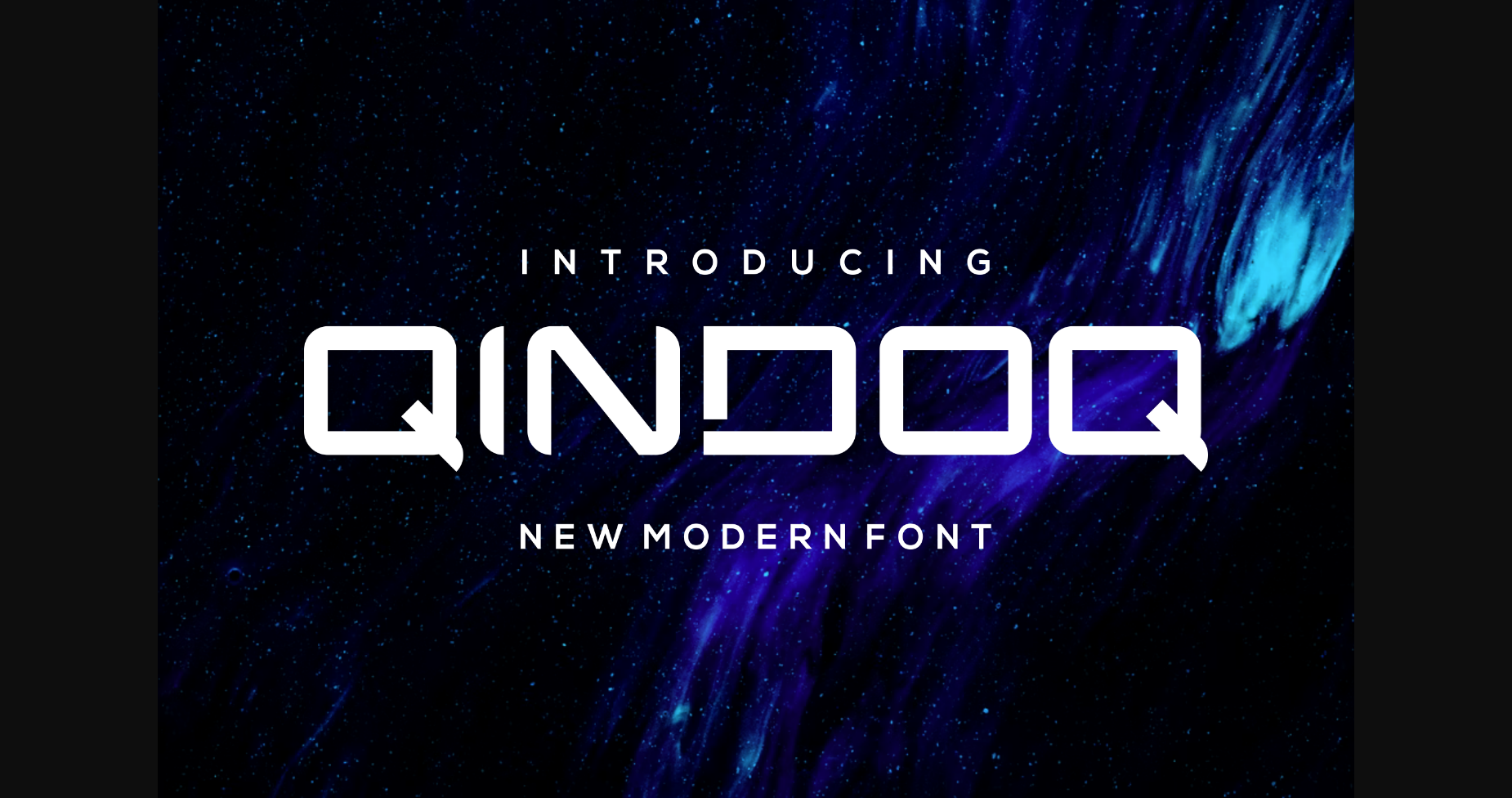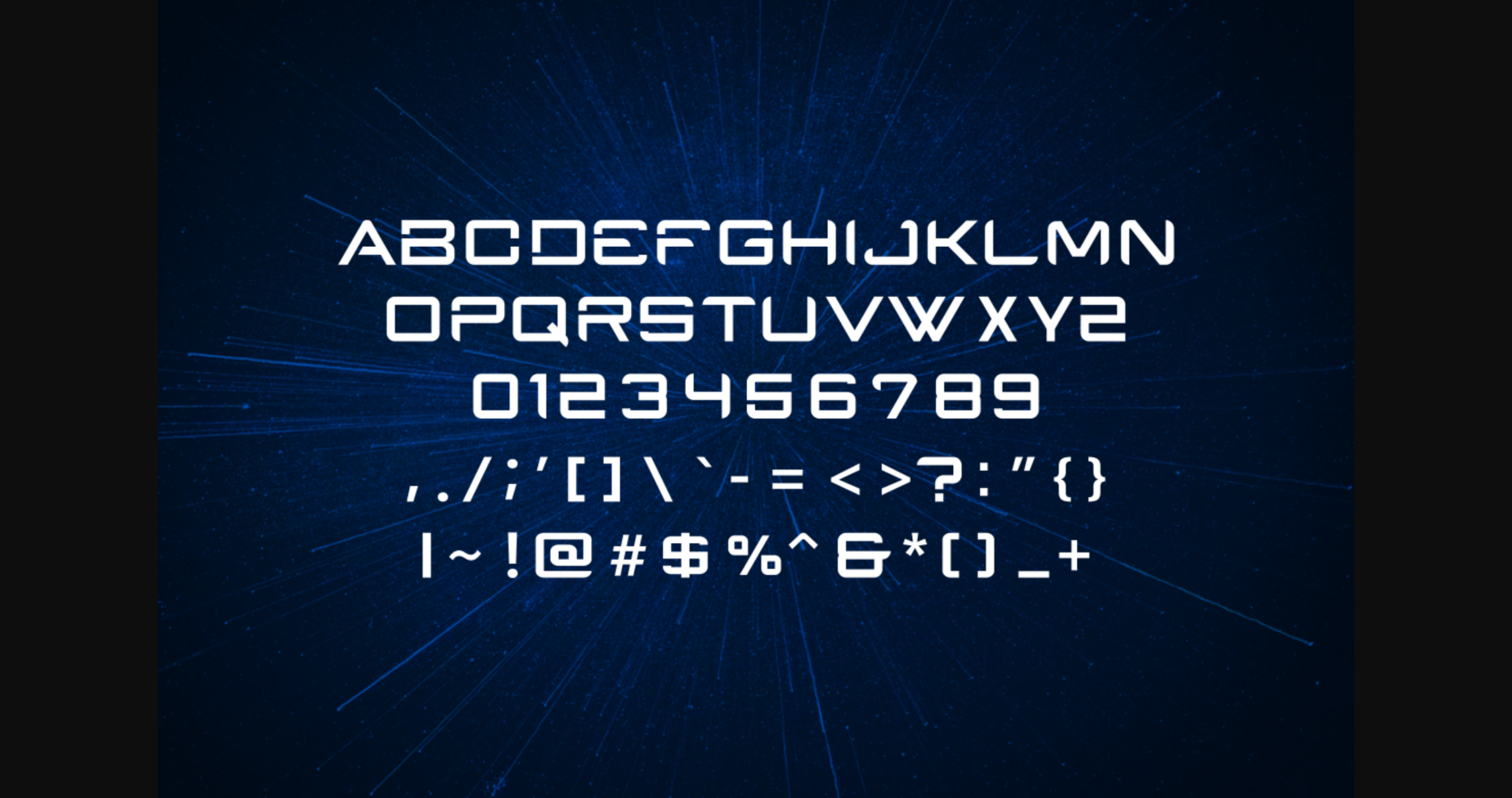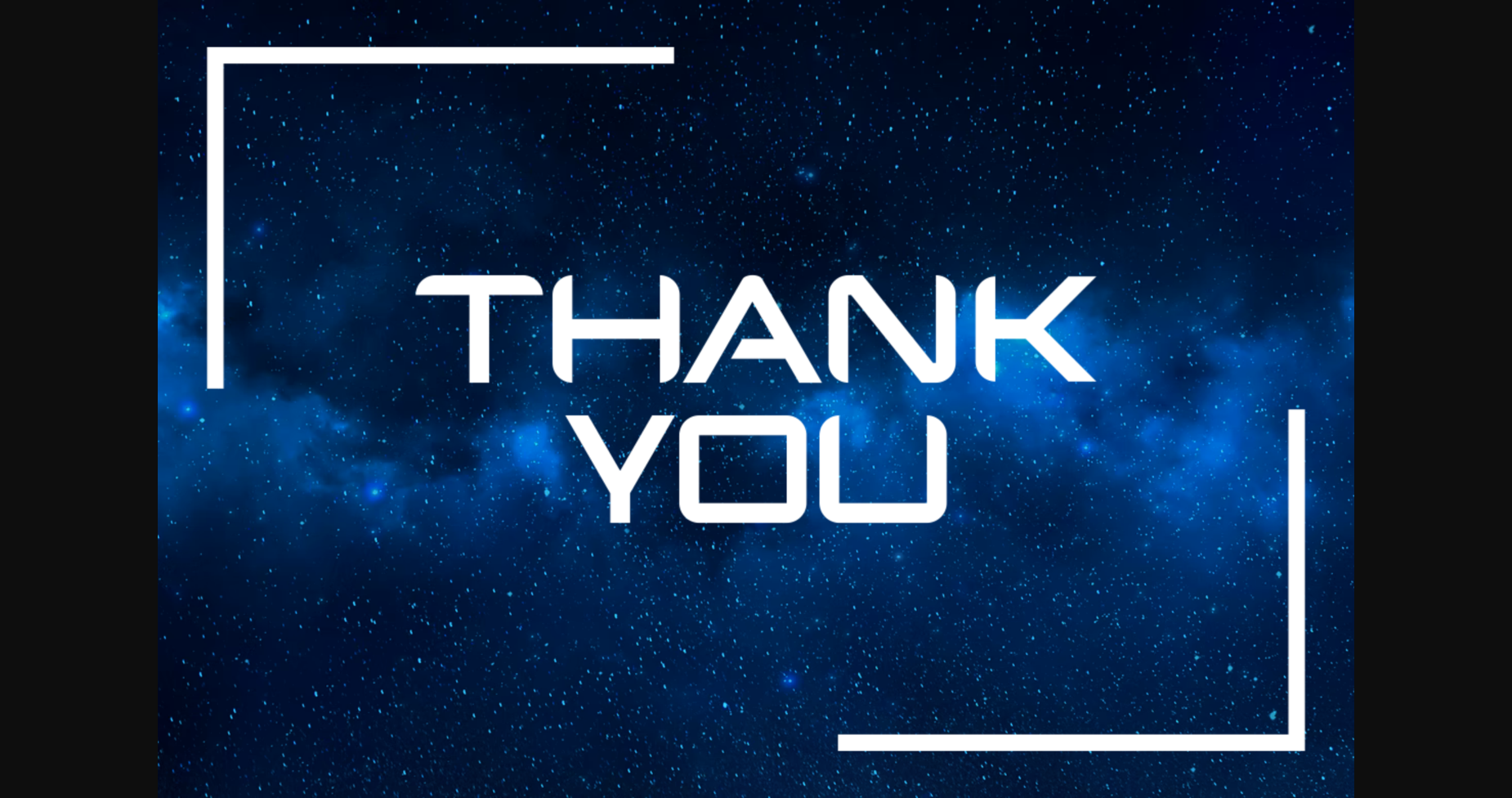
About Qindo Font
Introducing our new product **Qindo Font** – Modern Font
**Qindo Font** – Modern Font is a bold and authentic display font. The font is suitable for any branding project like logo, t-shirt printing, esport, and many more. outstanding in a wide range of contexts.